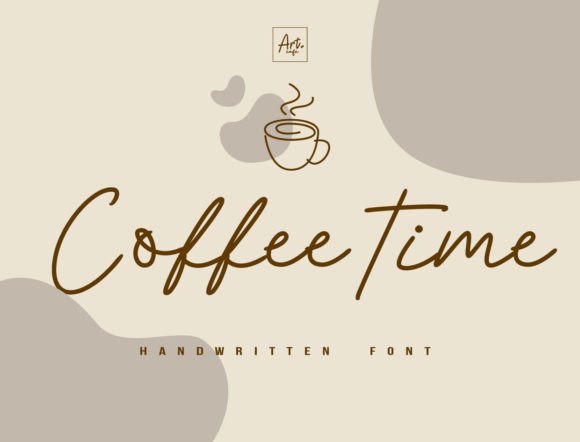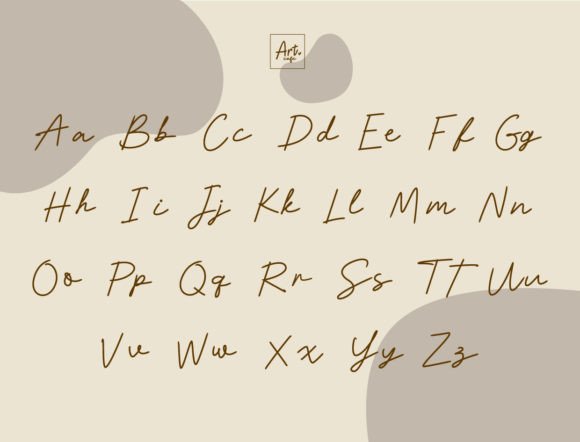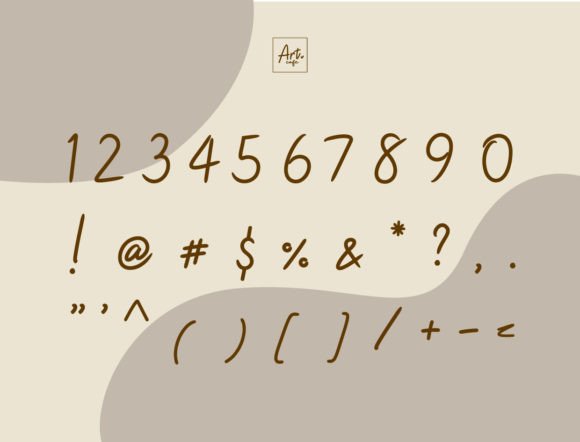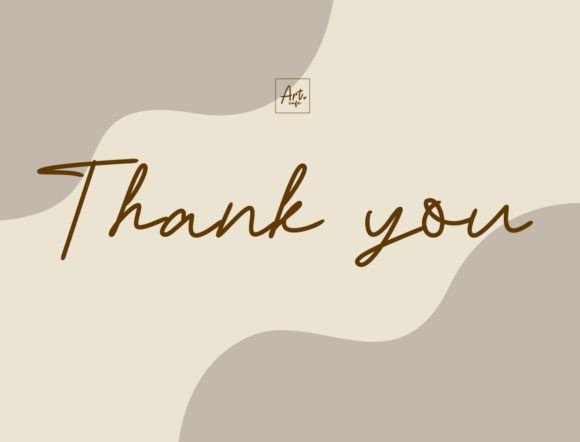
Coffee Time Font
About the Coffee Time Font
Add a touch of class to your work with the Coffee Time Font, a truly exceptional typeface. Immerse yourself in the captivating aesthetics of Coffee Time. Crafted with intricate penmanship, this handwritten cursive font exudes a unique signature style that resonates with minimalistic expressions and projects. Coffee Time is an artistic fusion of simplicity and elegance, making every textual encounter an immersive experience. Perfect for those cherishing understated design and minimalism, this font offers just the right balance of subtlety and sophistication.
Coffee Time’s elegant yet understated personality makes it ideal for branding projects requiring a touch of sophistication, particularly logos, short taglines, and invitations. It also works well on packaging for high-end products or boutique brands. However, its cursive nature and relatively low x-height make it unsuitable for body text or lengthy paragraphs, and its delicate strokes might be difficult to read at small sizes in UI contexts.
Pairing Coffee Time with a clean sans-serif like Lato or a geometric sans-serif like Montserrat provides a strong contrast and enhances readability when used together. For a warmer feel, consider pairing it with a serif like Playfair Display or a script font with less pronounced flourishes to maintain visual harmony.
The font’s overall mood is sophisticated and friendly, conveying a sense of calm confidence. Avoid using it for projects requiring a bold or aggressive statement; its strength lies in its subtle charm and refined aesthetics.
Coffee Time Font Usage Examples
Coffee Time Font Example